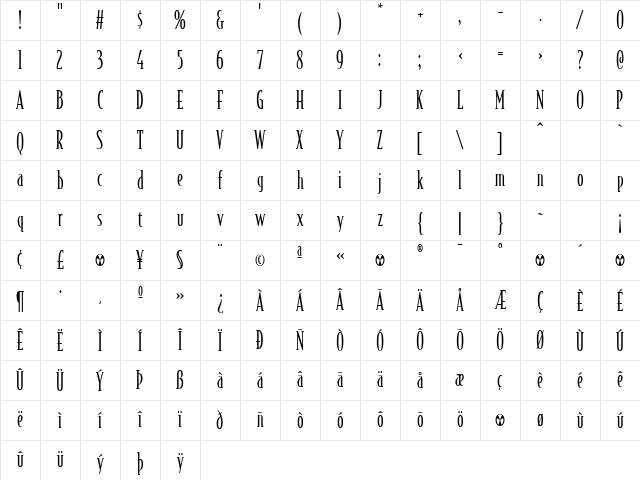
BodegaSerif Light
Design Context for BodegaSerif
BodegaSerif carries the refined structure of traditional serif typography, with bracketed terminals and considered proportions that communicate credibility and craft. Its slender proportions lend an understated elegance to any composition.